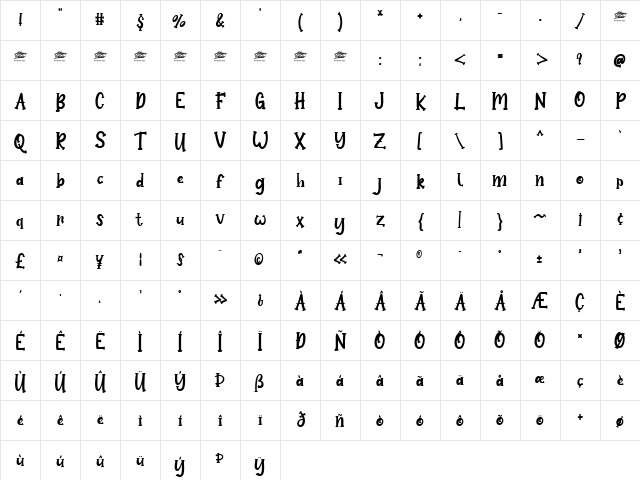
Complete Baby Snowman - Personal Use Regular glyph index. Displaying only characters natively supported by Baby Snowman - Personal Use Regular font.
Baby Snowman - Personal Use is a composed and adaptable typeface that performs quietly and consistently across a wide range of design contexts.